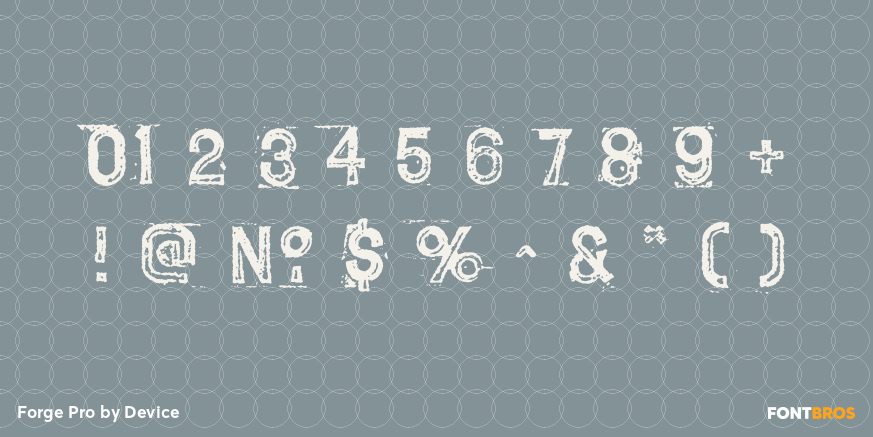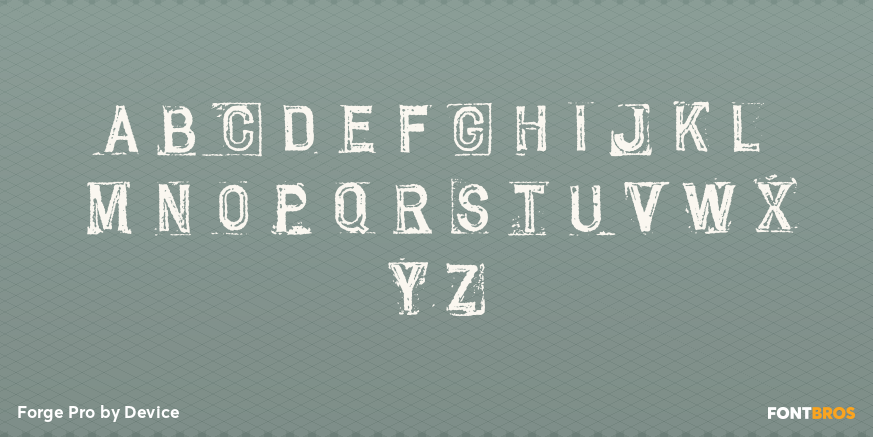
Forge Pro
Font Family by Device
Cast in iron and burnished by the feet of a million Londoners, this font derives from the manhole covers of England's capital city.
It evokes heavy duty machinery, metal castings and worn urban decay with gritty immediacy.